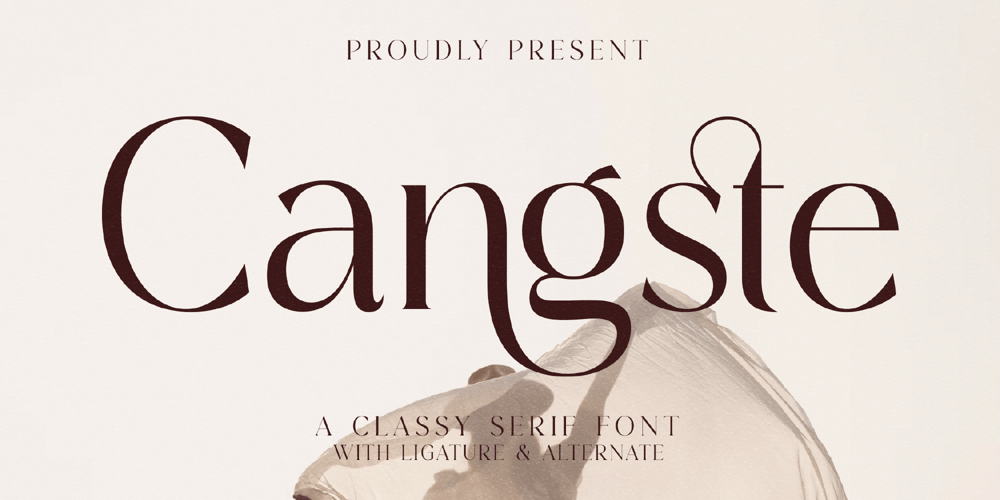
Cangste Font Family was designed by Heru Utama Putra and published by Letterena Studios. Cangste contains 2 styles and family package options. Cangste s a modern and classic serif font with a unique style and a modern look. This typeface is perfect for an elegant & luxury logo, book or movie title design, fashion brand, magazine, clothes, lettering, quotes, and so much more.